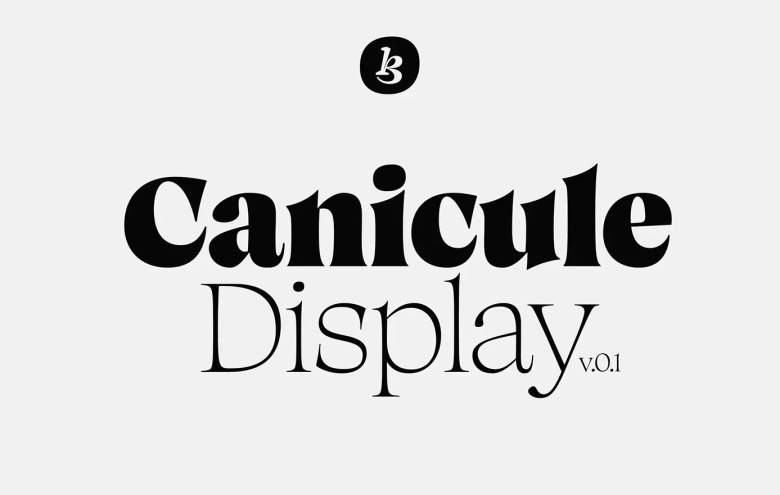
Canicule Font
Canicule is a Display Familial serif font, Canicule Display intends to be, first and foremost a display face: it presents itself as feminine, adaptable, and perhaps even slightly cursive, given its organic look. A vivid serif, Canicule Display is flavoured with a wink of the pen: the elongated serifs of the lighter weights swiftly become glyphic as the weight increases.
Meanwhile, this display typeface mostly comes in 9 styles, from Thin to Black, along with italic in all those in between’s, and it supports all the Latin Salted eminently expanded. You can even get your dirty hands on a Variable font. However, Canicule, Canicule will become a full family within the upcoming future as the designer proceeds: the Italic for the Display.
Canicule Serif Font